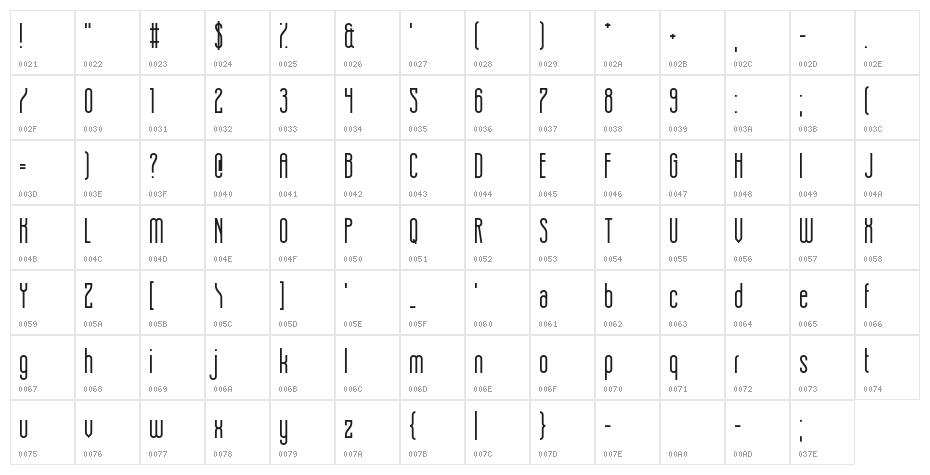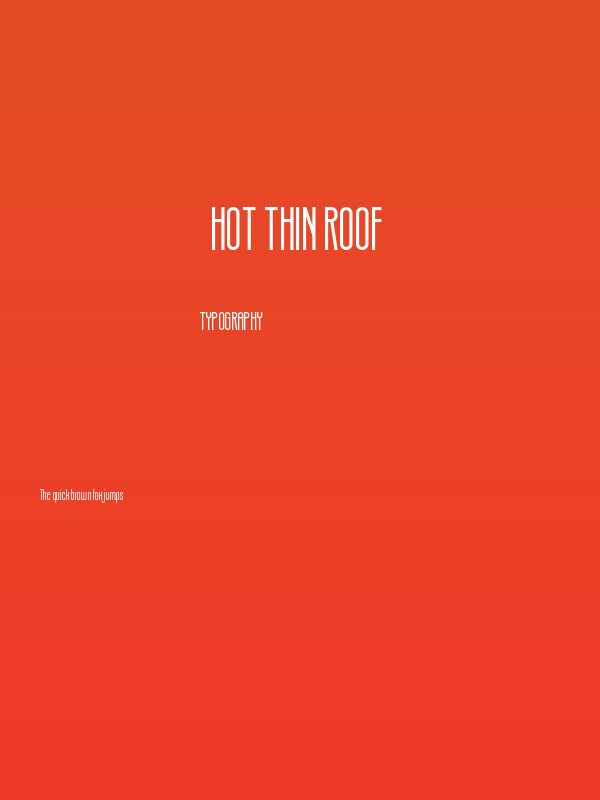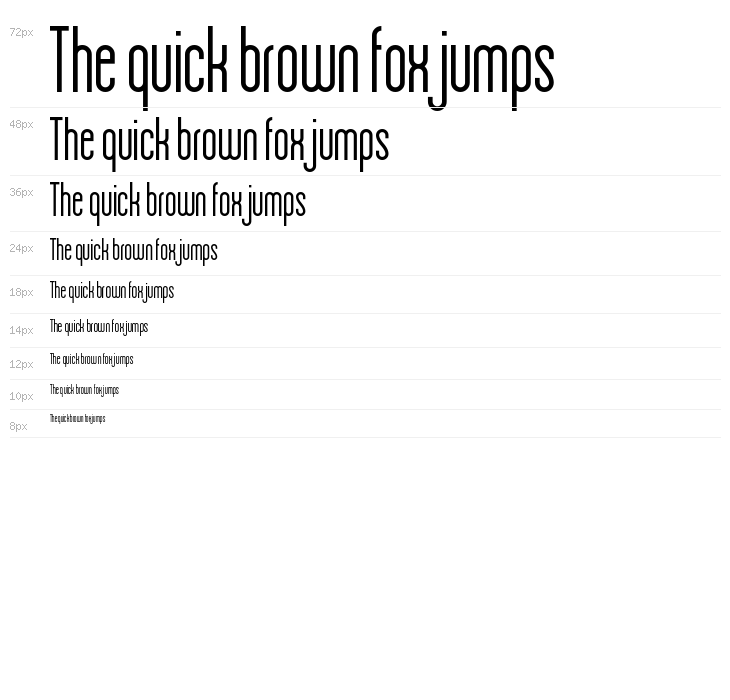
Hot Thin Roof Font
Hot Thin Roof Description
This font features a modern, geometric design with tall, narrow characters. The strokes are consistent in width, giving it a clean and streamlined appearance. The uppercase letters are particularly elongated, creating a sense of elegance and sophistication. The lowercase letters maintain the same narrow structure, ensuring uniformity across the typeface. Numbers and special characters follow the same design principles, making them easily legible and visually appealing. This font's minimalist style is ideal for projects that require a contemporary and sleek look.
| Proposed Projects | Ideal for branding, editorial design, posters, and digital interfaces where a modern and sleek appearance is desired. |